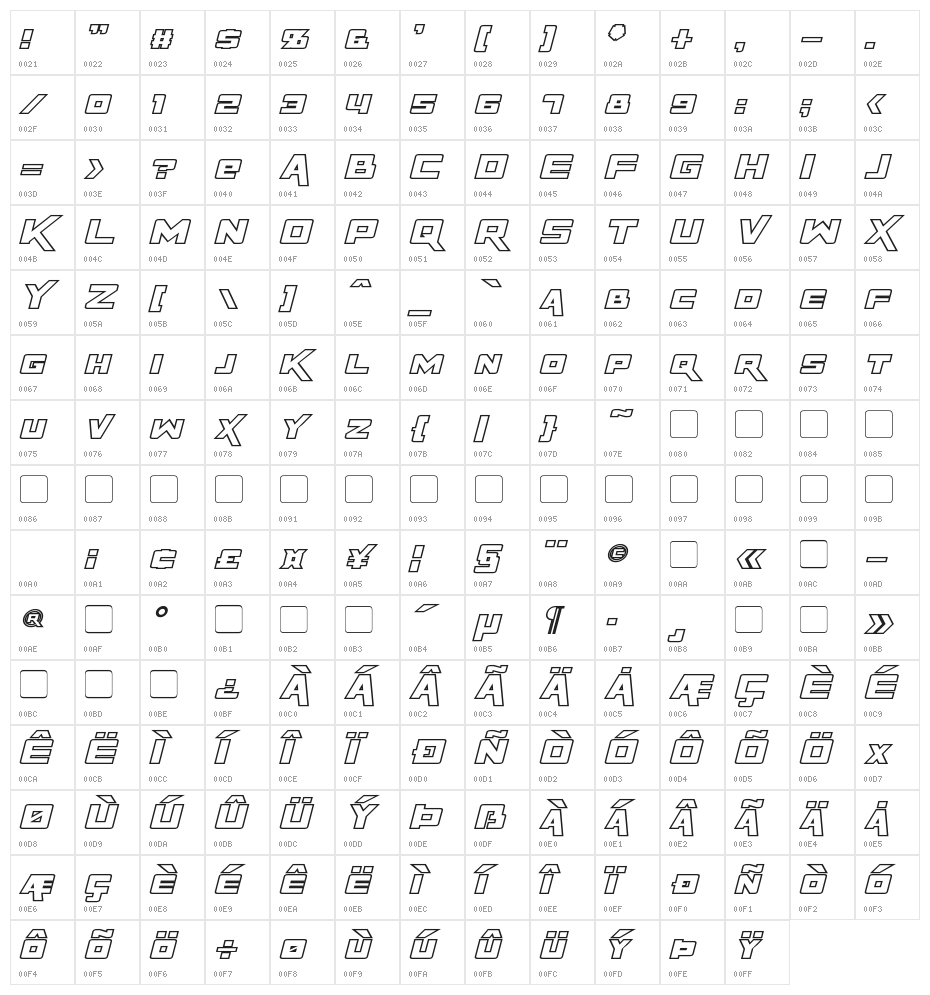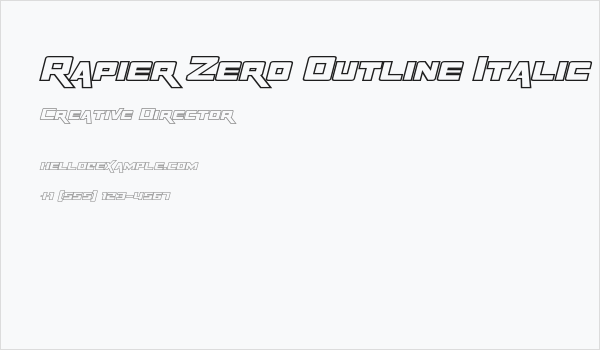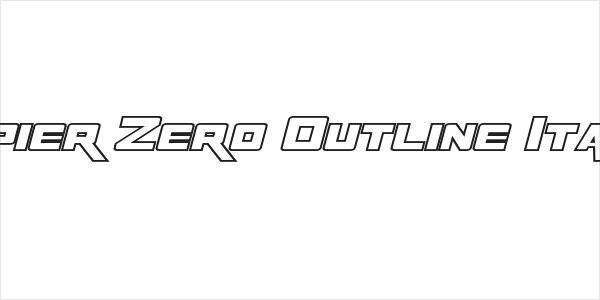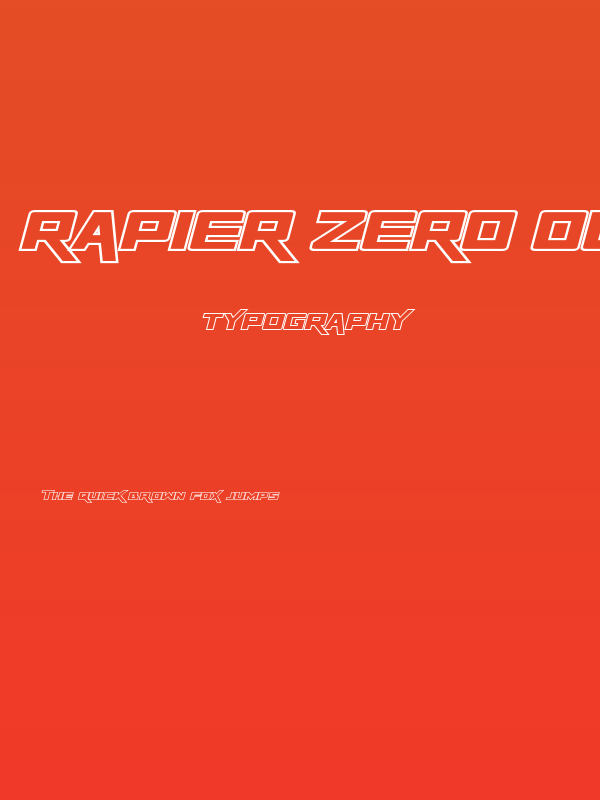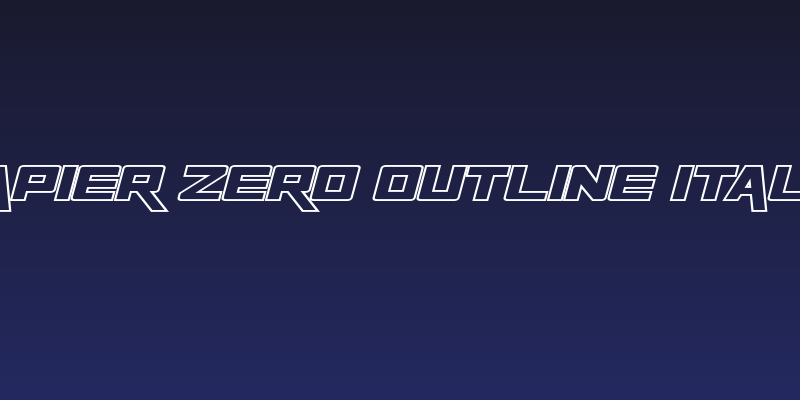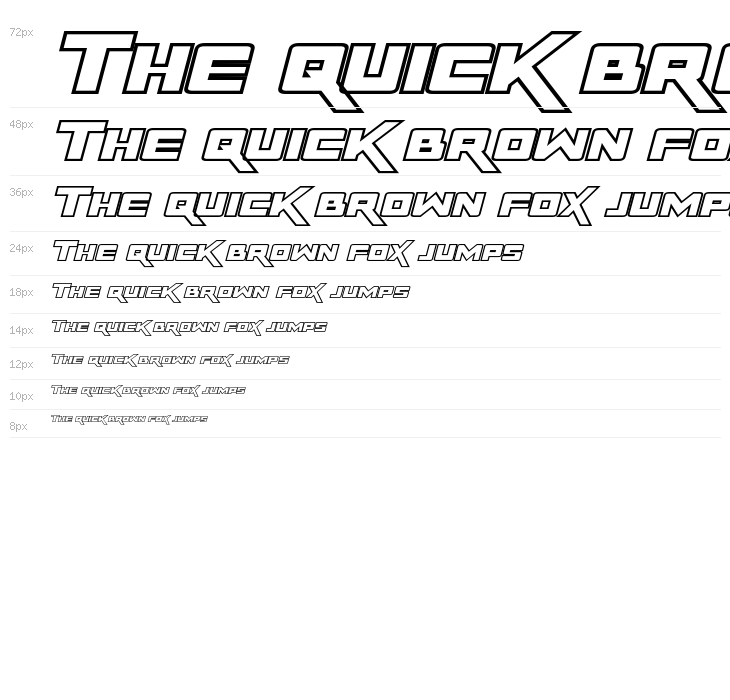
Rapier Zero Outline Italic Font
Rapier Zero Outline Italic Description
This font features a bold, angular design with a futuristic and dynamic appearance. Each character is outlined, giving it a distinctive, sharp look that suggests movement and energy. The italicized style adds to its sense of speed and modernity. The uppercase and lowercase letters maintain a consistent geometric form, while the numerals and special characters are crafted to match the overall aesthetic. The font's outline style makes it particularly striking, allowing for creative use in various design contexts.